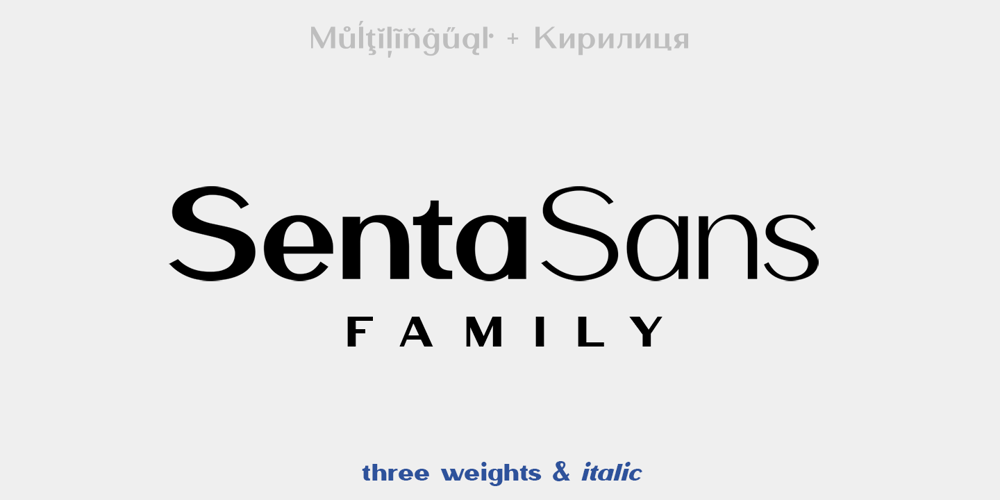
Senta Sans Font Family was designed by Dmytro Poliakh and published by Sentavio. Senta Sans contains 7 styles and family package options. SentaSans is classic and modern sans serif font family carefully designed and well looking with lowercase and uppercase letters both!SentaSans ideally works in fashion, luxury, cosmetics, wine and food areas.Multilingual support (LatinPro & Cyrillic).